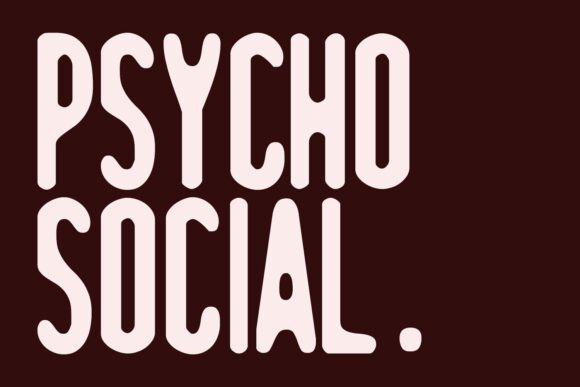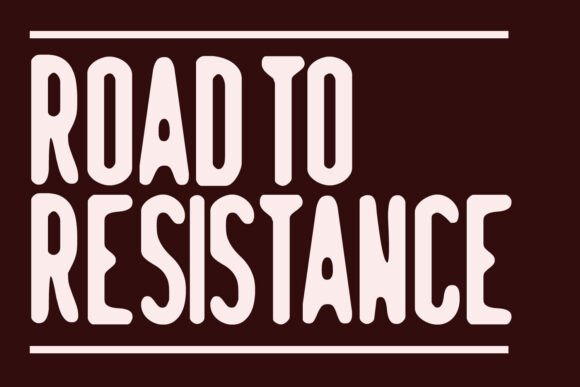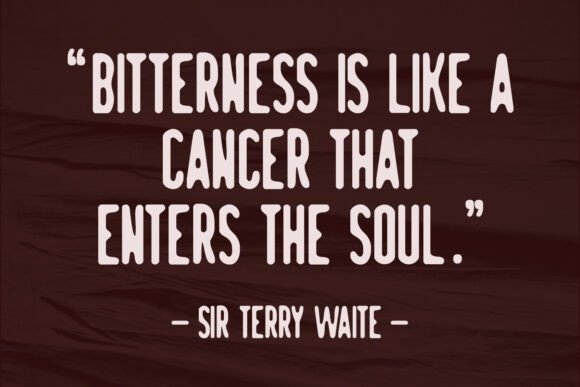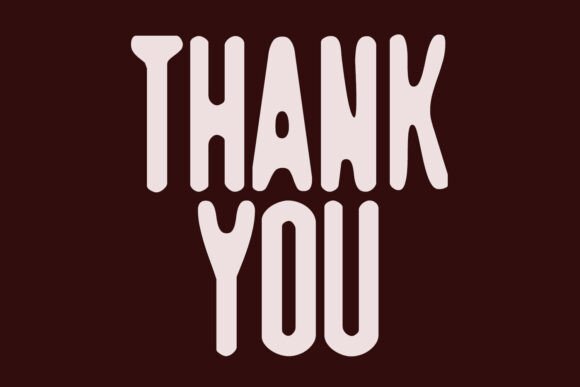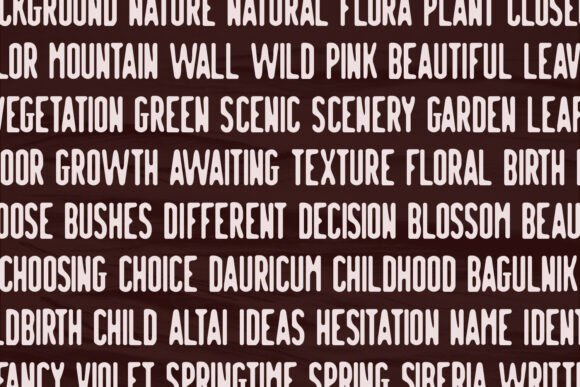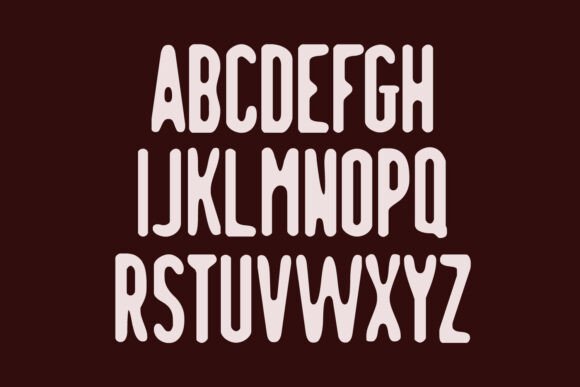
Introducing Hamtur Georgen Font: The Ultimate Sans Decorative Display Font
Are you tired of using the same old fonts for your design projects? Look no further! Hamtur Georgen Font is here to revolutionize your creative workflow with its unique blend of regular strokes, fun characters, and ligatures. This sans decorative display font is perfect for designers and crafters looking to add a touch of personality to their work.
What Makes Hamtur Georgen Font Special?
Hamtur Georgen Font is not just another font; it’s a game-changer. With its regular stroke and fun character design, it’s perfect for creating eye-catching logos, social media graphics, movie titles, book titles, and more. The font also features ligatures, which add an extra layer of creativity to your designs. Whether you’re working on a short text or a long text letter, Hamtur Georgen Font is the perfect choice.
Multilingual Support
In today’s globalized world, it’s essential to have a font that supports multiple languages. Hamtur Georgen Font goes above and beyond by supporting over 100 languages, making it an excellent choice for designers who work with international clients or want to reach a broader audience. With Hamtur Georgen Font, you can create designs that cater to diverse linguistic and cultural needs.
Hamtur Georgen Font is an incredibly versatile font that can be used for various design applications, including:
- Logo Design: Create stunning logos that stand out with Hamtur Georgen Font’s unique character design.
- Social Media: Use Hamtur Georgen Font to create engaging social media graphics that grab attention.
- Movie Titles: Add a touch of glamour to your movie titles with Hamtur Georgen Font’s decorative display style.
- Book Titles: Make your book titles pop with Hamtur Georgen Font’s elegant and modern design.
- Short Text and Long Text: Whether you’re working with short phrases or lengthy paragraphs, Hamtur Georgen Font is optimized for both.
Pairing with Script or Serif Fonts
One of the best things about Hamtur Georgen Font is its versatility when it comes to pairing with other fonts. Its clean and modern design makes it an excellent choice for pairing with script or serif fonts, perfect for creating a secondary text font that complements your primary font. This versatility allows you to experiment with different font combinations to create unique and visually appealing designs.
Why Choose Hamtur Georgen Font?
- Unique Character Design: Hamtur Georgen Font’s regular stroke and fun character design set it apart from other fonts.
- Multilingual Support: With support for over 100 languages, Hamtur Georgen Font is perfect for designers who work with international clients.
- Versatility: Hamtur Georgen Font can be used for a wide range of design applications, from logo design to book titles.
In conclusion, Hamtur Georgen Font is an exceptional sans decorative display font that offers a unique blend of style, versatility, and functionality. With its regular stroke, fun character design, and ligatures, it’s perfect for designers and crafters looking to add a touch of personality to their work. Whether you’re working on a logo design, social media graphics, movie titles, or book titles, Hamtur Georgen Font is an excellent choice. Its multilingual support and ease of use make it a valuable addition to any designer’s toolkit.